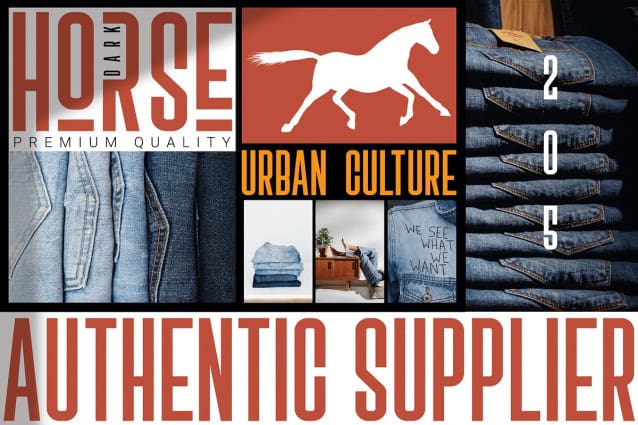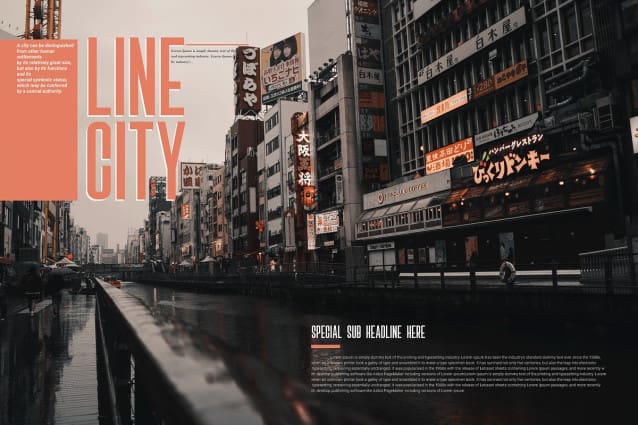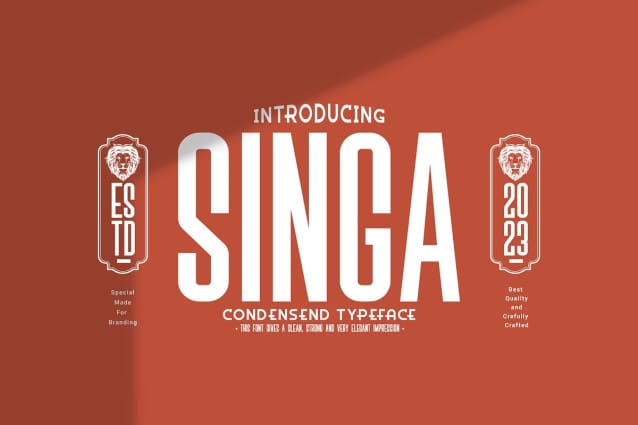
Singa Font
Singa font, this font gives off a clean, powerful and very elegant feel. This font is perfect for use in headlines, posters, branding, titles, and other graphic designs.